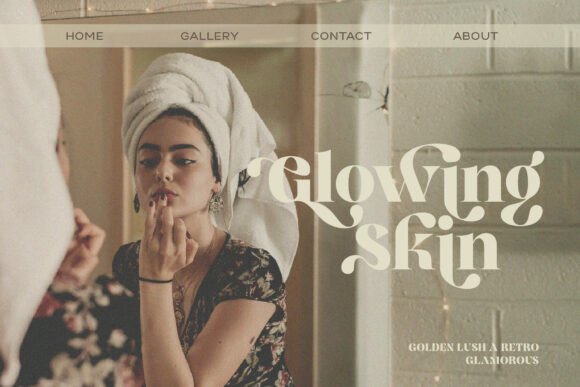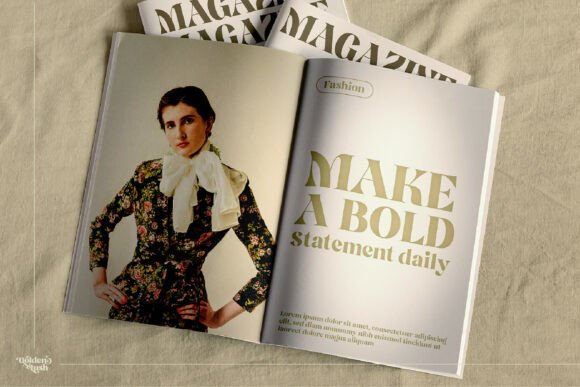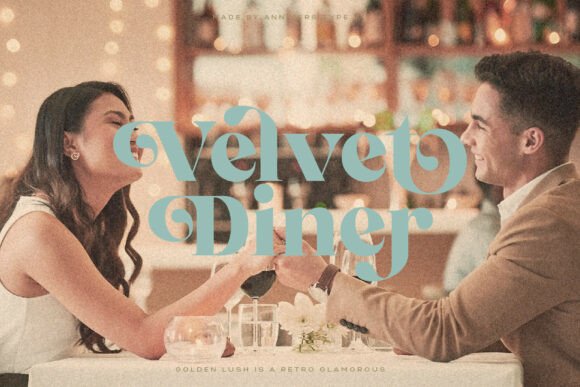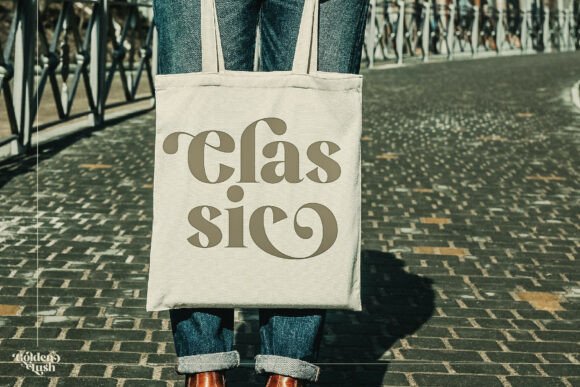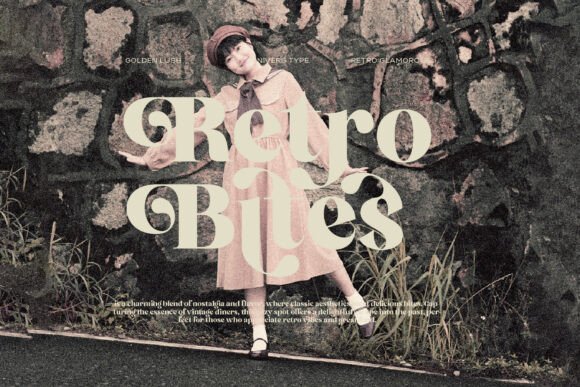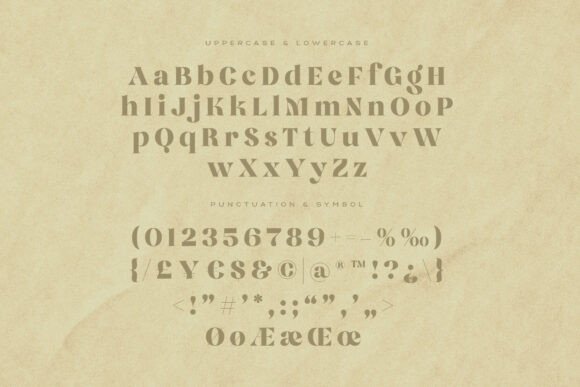
Introduction to Golden Lush Font Font
Fonts play a crucial role in design, and the Golden Lush Font font is a typeface that brings both character and versatility to any project. Whether you’re working on a branding project, a website, or a print design, the Golden Lush Font font offers a unique style that can elevate your work.
Golden Lush is a typeface brimming with retro glamour, drawing its inspiration from the signature typography of the 1970s to project a character that is bold, sophisticated, and elegant.
Luxurious, bold, and glowing with retro glamour — Golden Lush is a display serif that radiates timeless elegance Inspired by vintage movie posters and mid-century design, it merges strong curves with ornamental sparkles for a dazzling, cinematic effect.
The Golden Lush Font font is more than just a typeface – it’s a design tool that helps you communicate your message with style and clarity. Its unique character set and versatile design make it suitable for a wide range of applications, from elegant invitations to bold headlines.
With its carefully crafted letterforms and balanced proportions, the Golden Lush Font font ensures readability and visual appeal across all mediums.
The Golden Lush Font font stands out with its unique design, exceptional readability, and versatility across various design applications.